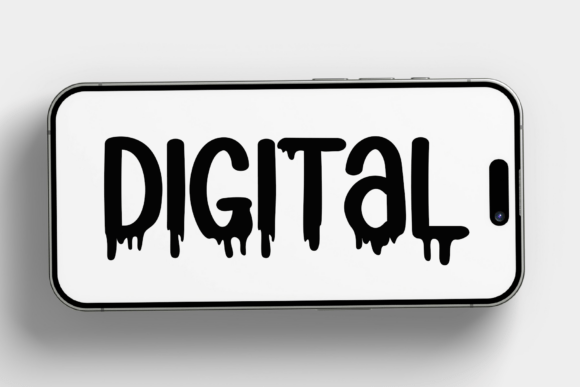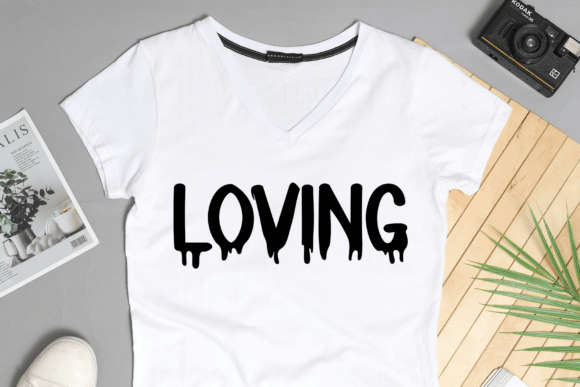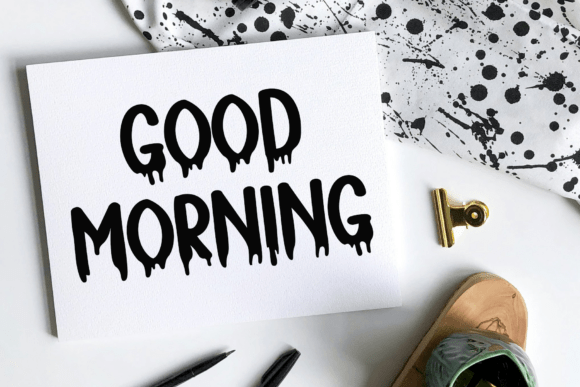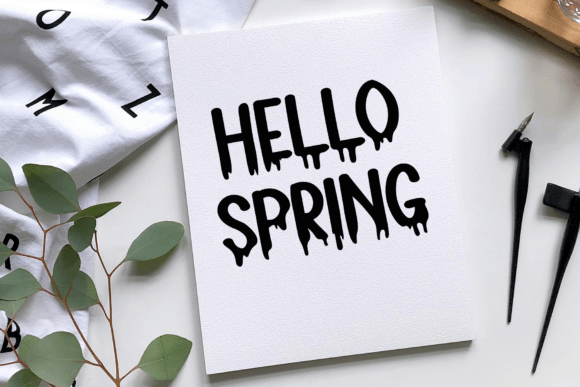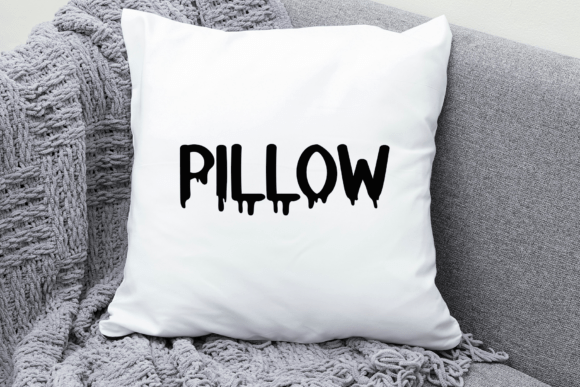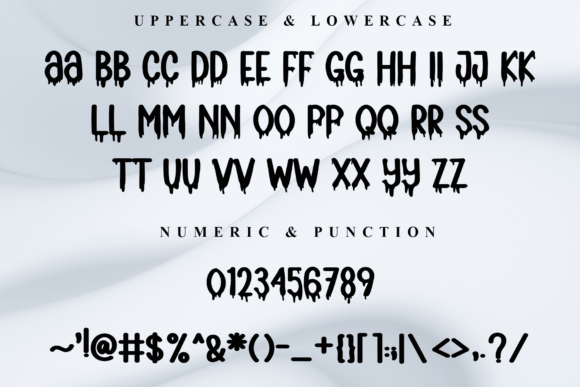
Unleash Your Creativity with the Perfect Font
Have you ever been in the middle of brainstorming a project and suddenly, the perfect idea hits you? The excitement is palpable, and you can’t wait to bring your vision to life. For designers, finding the right font can be the missing piece that takes their project from good to great. That’s where the Blood Dripping Font comes in – a casual and creative typeface that’s sure to add a touch of warmth and friendliness to any design.
This charming font features round, playful strokes that create a relaxed and approachable feel, making it perfect for personal projects, invitations, and social media graphics. With its hand-drawn aesthetic, the Blood Dripping Font is a valuable asset for designers looking to add a unique touch to their designs.
Blood Dripping Font Key Features
- Font Type: Display Font
- Unique Characteristics: Distressed, Grungy, Horror-inspired aesthetic with blood-like splatters and drips
Blood Dripping Font Review
Overall, I have mixed feelings about the “Blood Dripping Font”. While it’s definitely unique, it’s not for every design project. ✨ The font’s most striking feature is its dramatic, hand-painted look, reminiscent of blood dripping from a crime scene. This adds a level of sophistication and edginess to any design. It’s perfect for projects that require a bold, attention-grabbing effect.
However, there are some limitations to consider: ⚠️ The font’s lack of readability in smaller text sizes is a major concern. The letters become distorted and lose their definition, making it difficult for viewers to read the text. Additionally, the font’s complexity might make it challenging to pair well with other fonts, which could limit its versatility.
Here are some things to keep in mind when using the “Blood Dripping Font”:
- Use it sparingly, as it can be overwhelming in large quantities.
- Pair it with a clean, simple font to balance out the complexity.
- Use it for headings or titles, where the dramatic effect can be most effective.
Overall, the “Blood Dripping Font” is a great addition to any designer’s toolkit, but it’s not a one-size-fits-all solution. With careful consideration and planning, it can add a level of drama and sophistication to your designs.
For the best results, use the Blood Dripping Font sparingly to add a touch of drama and emphasis to your text.
1. Horror movie or thriller title sequences.
2. Gothic or dark-themed posters and flyers.
3. Haunted house or spooky atmosphere-themed events.
Remember to balance the font with other design elements to avoid overwhelming the viewer.